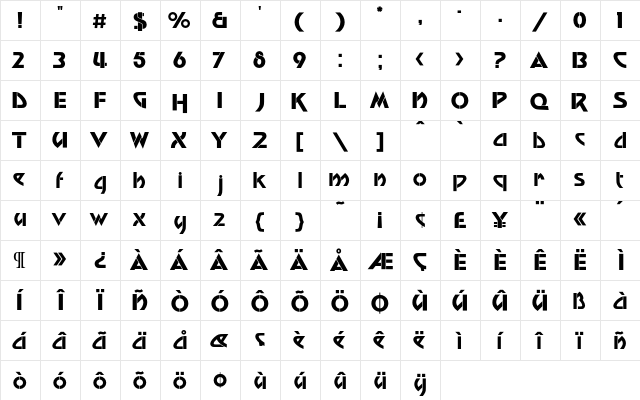
Breadline Normal
Design Context for Breadline Typeface
Breadline is a composed and adaptable typeface that performs quietly and consistently across a wide range of design contexts.